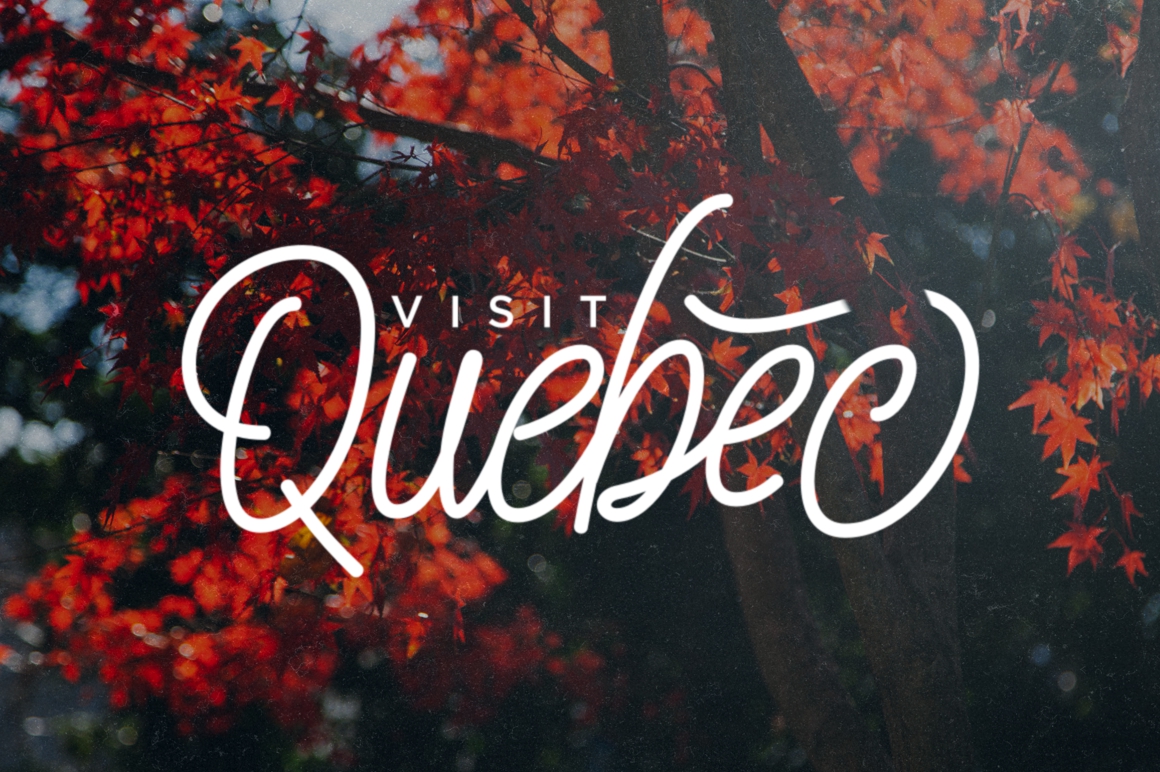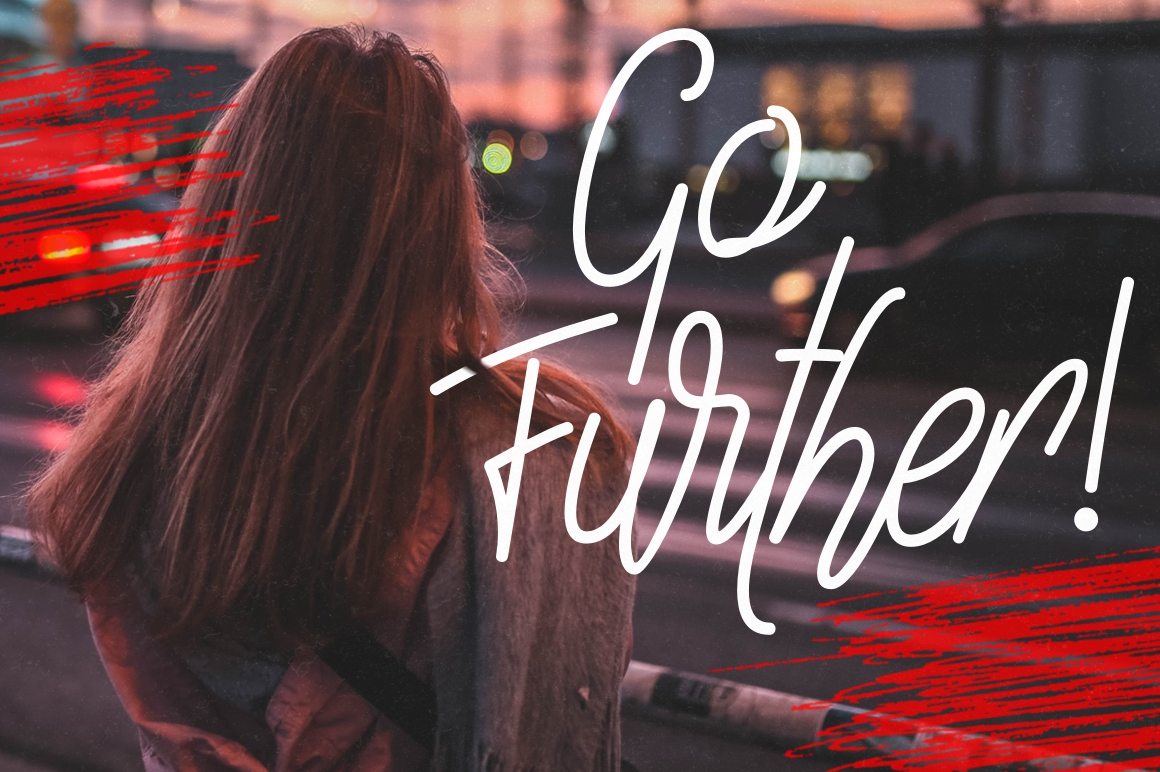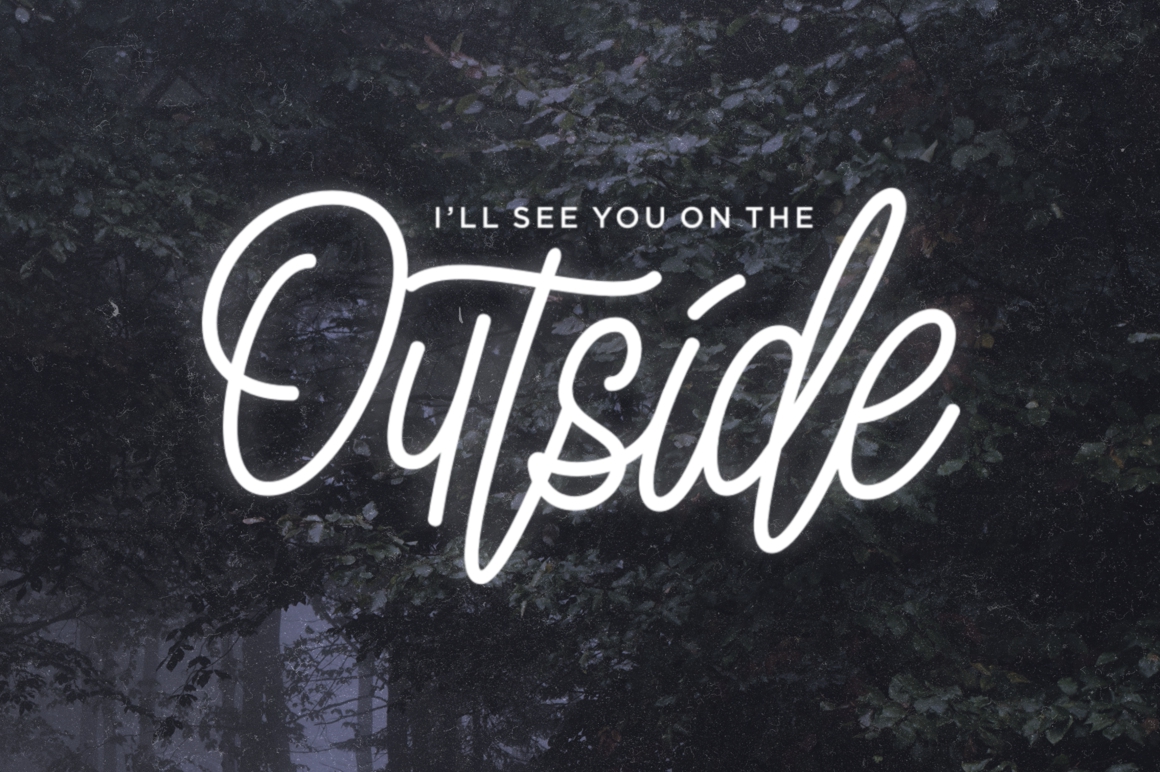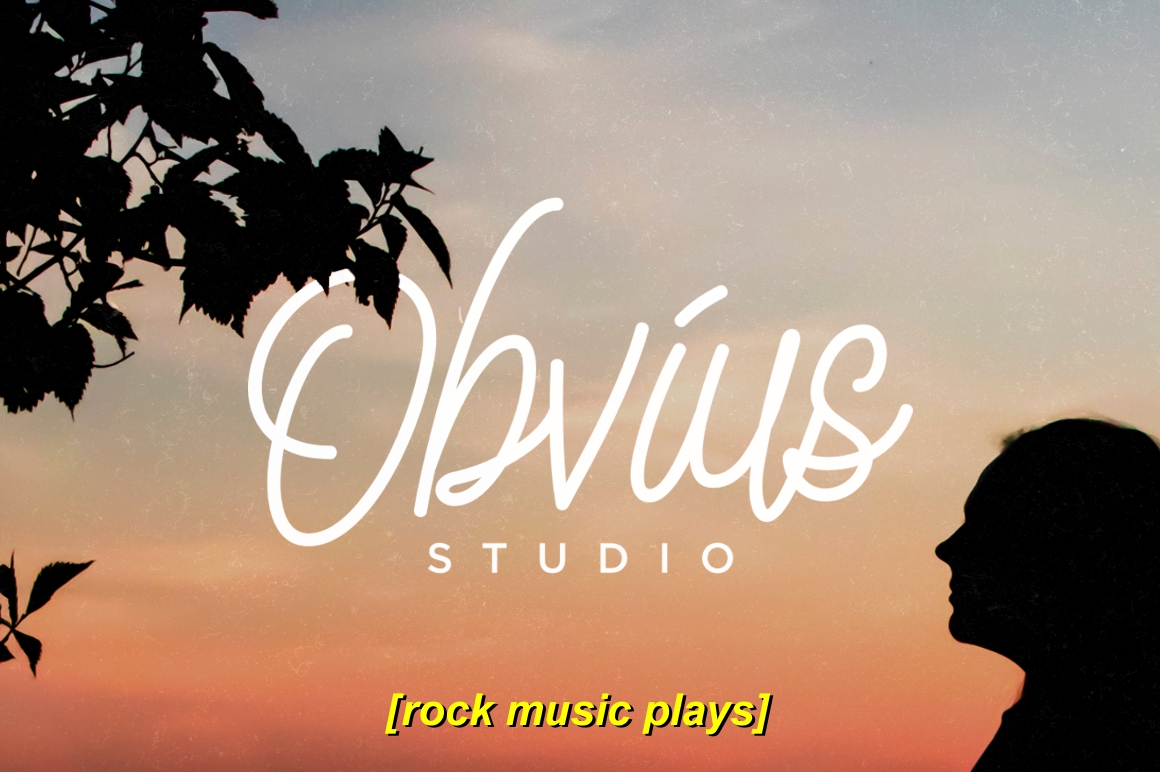
Sláinte Font
About Sláinte Font
Introducing Sláinte Script, a new monoline script that is heavily inspired by the modern calligraphy. Refined from scratch using ballpoint pen, this typeface offers you an authentic yet unique handwriting feel.